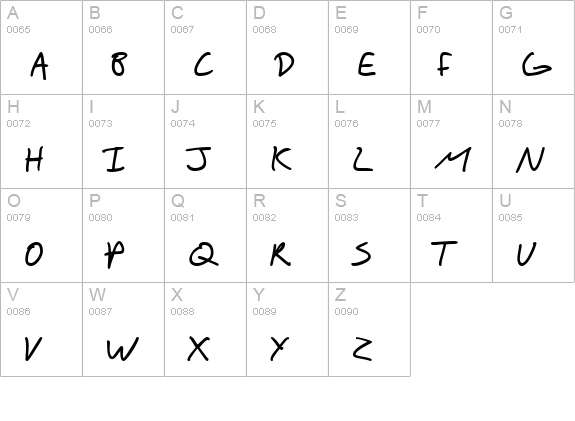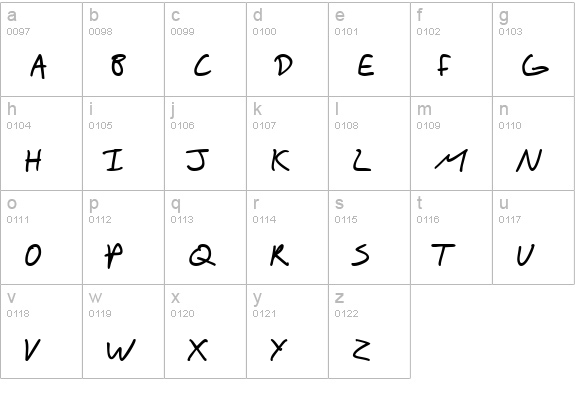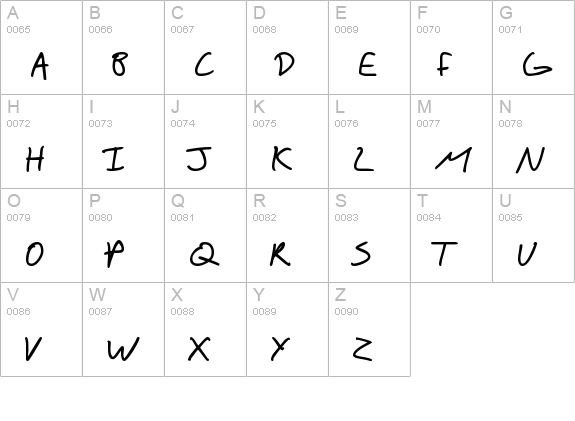
SF Scribbled Sans SC Bold Font Details
SF Scribbled Sans SC Bold is a strong, high-contrast variant in the SF typeface family \xE2\x80\x94 well suited to headlines, attention-grabbing titles, and strong calls-to-action.
SF Scribbled Sans SC Bold is a captivating and bold font that exudes a sense of edginess and creativity. With its distinctive scribbled style, this font adds a unique and artistic touch to any design project. The bold weight of the font emphasizes its confident and attention-grabbing nature, making it perfect for headlines, titles, and logos. One of the standout features of SF Scribbled Sans SC Bold is that it is available for free. This means that designers and creatives can freely incorporate this font into their projects without any restrictions. Whether you are a professional designer or a hobbyist, this font offers an opportunity to explore and experiment with typography without breaking the bank. To access SF Scribbled Sans SC Bold, simply head over to FontsMarket.com, where it is readily available for download. FontsMarket.com is a reputable platform that offers a vast collection of high-quality fonts, and SF Scribbled Sans SC Bold is just one of the many gems you can find there. By making this font freely available, FontsMarket.com enables designers to expand their creative horizons and elevate their designs to new heights. In conclusion, SF Scribbled Sans SC Bold is a visually striking font that is freely available to download at FontsMarket.com. Its bold and unconventional style adds a touch of excitement and artistry to any design project. Whether you are looking to make a statement with a headline or create a memorable logo, this font can help you achieve your desired effect. Don't miss out on the opportunity to incorporate SF Scribbled Sans SC Bold into your designs and unleash your creativity.